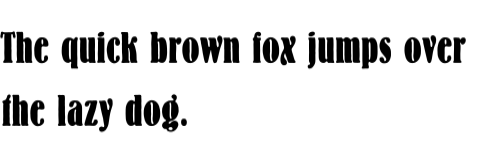
Contour Bold Font: Making Statements with Elegance and Strength
In the vast universe of typography, certain fonts stand out for their unique ability to capture attention and convey messages with distinct elegance and strength. Among these, the Contour Bold Font emerges as a remarkable typeface that commands attention with its thick strokes and graceful curves. This article aims to provide an in-depth exploration of the Contour Bold Font, highlighting its characteristics, versatility, and the pivotal role it plays in creating impactful branding and striking presentations.
Characteristics of Contour Bold Font
The Contour Bold Font is distinguished by its bold and dynamic appearance. Its thick strokes exude strength and confidence, while its graceful curves add a touch of fluidity and approachability. This unique blend of strength and fluidity gives the font a modern yet relatable feel, making it an excellent choice for various design applications.
One of the key characteristics of the Contour Bold Font is its flexibility. Despite its bold nature, it can be effortlessly integrated into different design contexts, from headlines and display designs to branding and presentations. Its distinctive presence ensures that it draws the eye, making it perfect for designers looking to create a lasting impression.
Applications and Uses of Contour Bold Font
The Contour Bold Font is incredibly versatile, making it suitable for a wide range of applications. Its most common uses include:
• Headlines and Display Designs: The font’s bold nature makes it an excellent choice for headlines and display designs, where grabbing the reader’s attention is paramount.
• Branding: For brands looking to make a strong statement, the Contour Bold Font offers a confident and elegant solution. Its unique blend of strength and fluidity can help brands stand out in a crowded marketplace.
• Presentations: Whether it’s for a business presentation or a creative project, this font can add a level of sophistication and impact that elevates the overall design.
Benefits of Using Contour Bold Font
The Contour Bold Font offers several benefits that make it a preferred choice among designers:
• Attention-Grabbing: Its bold strokes ensure that the text does not go unnoticed, making it ideal for headlines and critical messages.
• Elegance and Sophistication: The graceful curves of the font add an element of elegance, making it suitable for designs that require a touch of sophistication.
• Versatility: The font’s flexibility allows it to be used across various platforms and design applications, from digital media to print.
• Legibility: Despite its bold nature, the Contour Bold Font maintains a high level of legibility, ensuring that the message is conveyed clearly and effectively.
Tips for Effective Use of Contour Bold Font
To maximize the impact of the Contour Bold Font, consider the following tips:
• Use it Sparingly: While the font is designed to draw attention, its effectiveness can be diluted if overused. Use it sparingly for headlines or key messages.
• Combine with Complementary Fonts: Pair the Contour Bold Font with simpler fonts for body text to create a balanced and visually appealing design.
• Consider the Context: Ensure that the font aligns with the overall tone and message of your design. The Contour Bold Font is versatile, but it may not be suitable for all audiences or contexts.
In conclusion, the Contour Bold Font is a powerful tool in the world of typography. Its unique blend of strength and fluidity, combined with its versatility and distinctive presence, makes it an excellent choice for designers looking to create impactful and elegant designs. Whether it’s for branding, presentations, or display designs, this font delivers a confident statement that can elevate any project. By understanding its characteristics and using it effectively, designers can harness the full potential of the Contour Bold Font to create striking and memorable designs.
The Future of Typography: Bold and Dynamic Fonts
The world of typography is constantly evolving, with new trends and technologies emerging regularly. However, the demand for bold and dynamic fonts like the Contour Bold Font is expected to continue. As digital media becomes increasingly important, the need for fonts that can command attention and convey messages effectively will only grow.
Fonts like Contour Bold play a crucial role in shaping the visual identity of brands and designs. Their ability to make a statement and draw the eye makes them invaluable tools for designers. As typography continues to evolve, it will be interesting to see how bold and dynamic fonts adapt to new technologies and design trends.
The Contour Bold Font is more than just a typeface; it’s a statement. Its bold strokes and graceful curves make it a versatile and impactful font that can elevate any design. By incorporating this font into their projects, designers can create visually stunning and effective designs that capture attention and convey messages with elegance and strength.